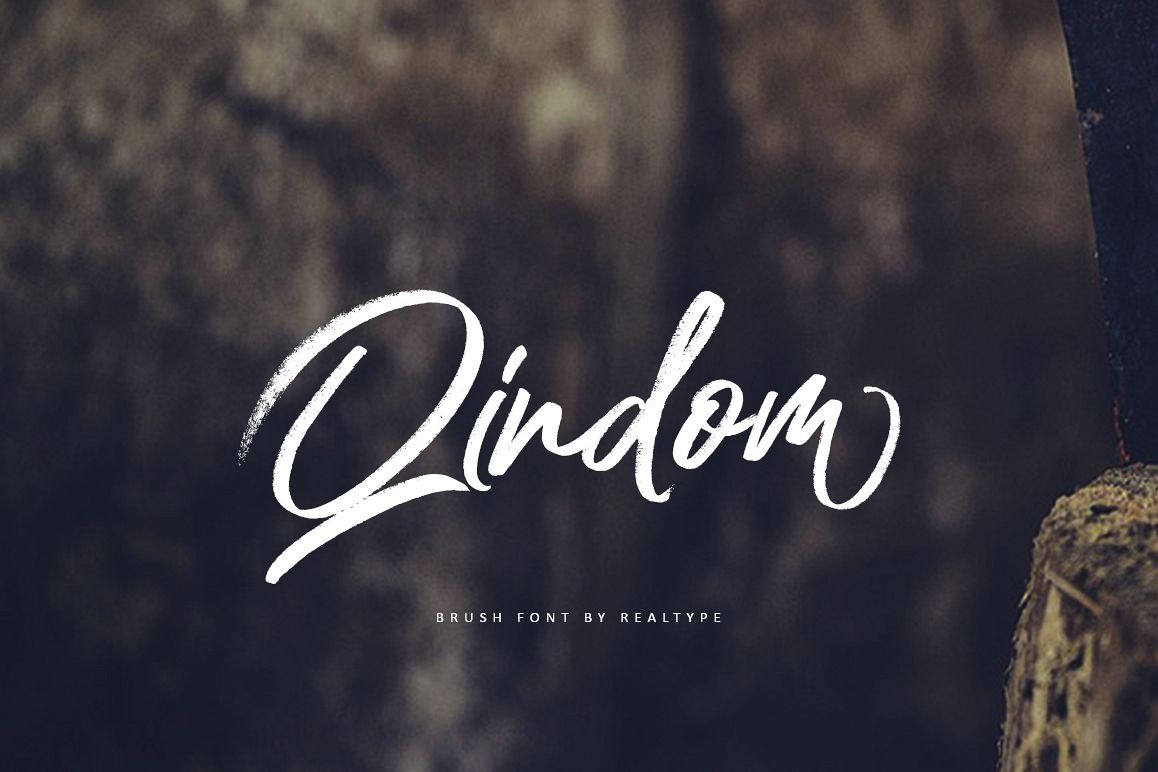
Qindom
Qindom ALT
Qindom
Introducing!
Qindom Brush Script Typeface!
Qindom inspired by natural brush typeface. Written in fast motion using a little bit dry brush pen. It will give
you a fresh and modern design and will look beautiful with offer, magazine mode, offer logo, product
packaging, headers, posters, merchandise, social media greeting cards & more.
Qindom comes with uppercase and lowercase letters, large sets and lowercase sets of international flying
machines, numbers, and languages that can be used for international languages. Alternate styles for some
lowercase characters are also available